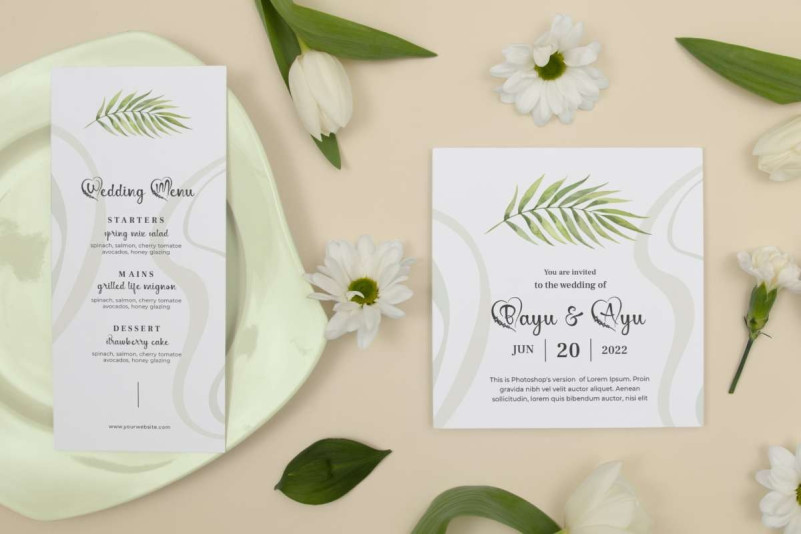
Bagus & Ayu Script Font is a beautiful script font with a touch of love created by EdricStudio. This font was created by raising the concept of heart in uppercase characters and is still easy to read making it suitable for any industry, such as boutique, cosmetic, event organizer, perfume brand, printing, publishing, restaurant, spa, and anything that requires an elegant script look.
Bagus & Ayu Font comes with a full set of Uppercase and Lowercase Basic Characters, Number, a large range of Punctuation and Symbol. It has a stunning characters set, perfectly managed with well spaced and kerning. Bagus & Ayu Font will be great for any projects (with extended license) including : brochure, business card, catalog, invitation, label, menu sheet, quotes, sticker, watermark, etc.